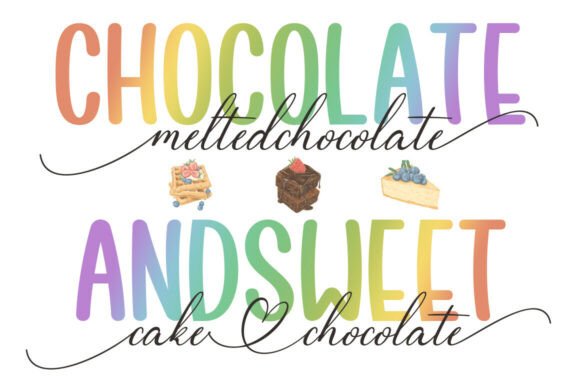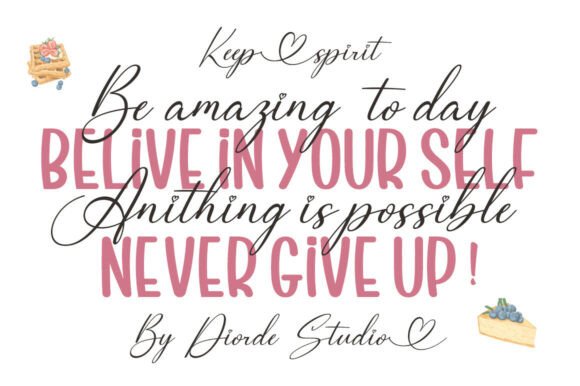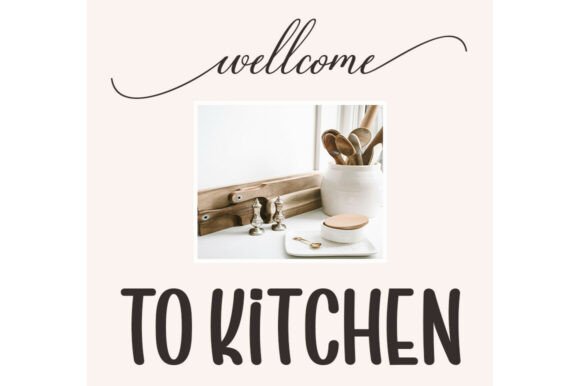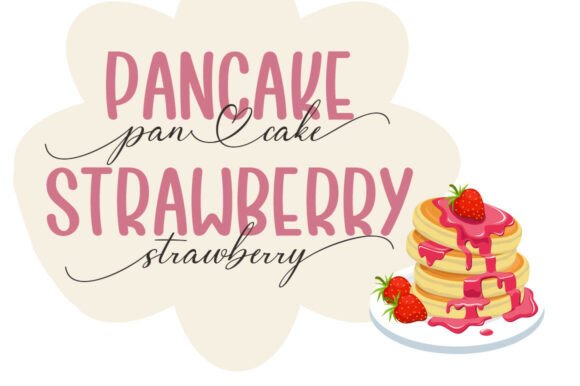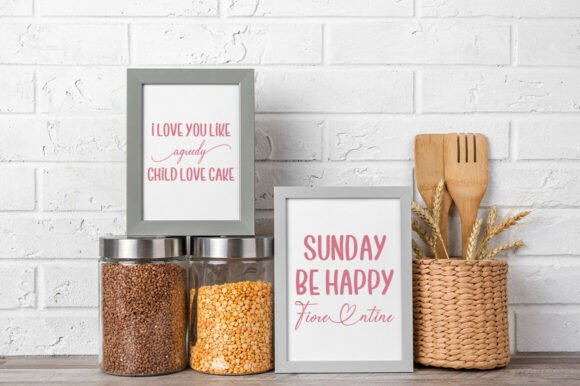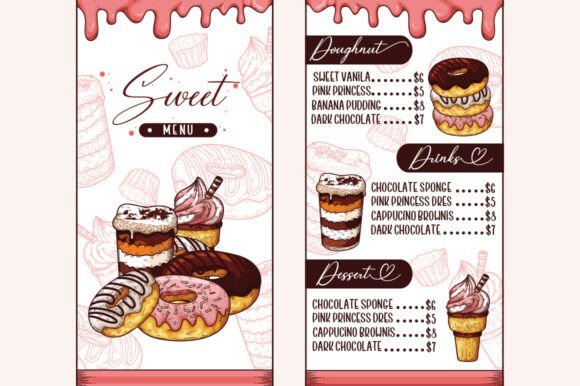
Introducing Cheescake Handmade Duo Font: Elevate Your Designs with a Touch of Romance
Are you a designer, crafter, or DIY enthusiast looking for a font that adds a dash of elegance and romance to your creations? Look no further than the Cheescake Handmade Duo Font. This beautiful duo font, consisting of a display and script font, is perfect for a wide range of applications, from greeting cards and invitations to headlines and branding materials.
What Makes Cheescake Handmade Duo Font Special?
Cheescake Handmade Duo Font is designed to bring a touch of whimsy and sophistication to your designs. Its delicate and stylish appearance makes it ideal for projects that require a romantic and feminine feel. Whether you’re creating wedding stationery, crafting handmade products, or designing social media graphics, this font is sure to impress.
One of the standout features of Cheescake Handmade Duo Font is its PUA (Private Use Area) encoding. This means that you can easily access all the glyphs and ligatures, giving you greater flexibility and creative control over your designs. With PUA encoding, you can effortlessly insert special characters, swashes, and other unique elements that will make your designs truly stand out.
Key Features of Cheescake Handmade Duo Font
- Duo Font: Includes both a display font and a script font, allowing you to mix and match to create stunning combinations.
- PUA Encoded: Easy access to all glyphs and ligatures, making it simple to add unique touches to your designs.
- Romantic and Feminine: Perfect for projects that require a delicate and elegant feel, such as wedding stationery, greeting cards, and more.
- Versatile: Suitable for a wide range of applications, from digital designs to print materials.
To get the most out of Cheescake Handmade Duo Font, experiment with different combinations of the display and script fonts. You can use the display font for headlines and titles, while the script font adds a touch of elegance to your body text or descriptions.
Here are a few ideas for using Cheescake Handmade Duo Font in your designs:
- Create stunning wedding stationery, including invitations, save-the-dates, and thank-you cards.
- Design beautiful greeting cards for special occasions, such as birthdays, anniversaries, and holidays.
- Add a touch of elegance to your branding materials, including logos, business cards, and letterheads.
- Use the font to create eye-catching headlines and titles for your blog posts, social media graphics, and website.
Tips and Tricks for Getting the Most Out of Cheescake Handmade Duo Font
To ensure that your designs look their best, here are a few tips and tricks to keep in mind:
- Experiment with different font sizes and combinations: Play around with different font sizes and combinations of the display and script fonts to create visual interest and hierarchy.
- Use high-quality images and graphics: Pair Cheescake Handmade Duo Font with high-quality images and graphics to create stunning designs.
- Keep it simple: Don’t be afraid to keep your designs simple and elegant. Cheescake Handmade Duo Font is designed to shine on its own, so let it be the focal point of your design.
Cheescake Handmade Duo Font is a beautiful and versatile font that is perfect for designers, crafters, and DIY enthusiasts looking to add a touch of romance and elegance to their creations. With its PUA encoding and duo font design, this font offers endless possibilities for creative expression. Whether you’re creating wedding stationery, greeting cards, or branding materials, Cheescake Handmade Duo Font is sure to impress.